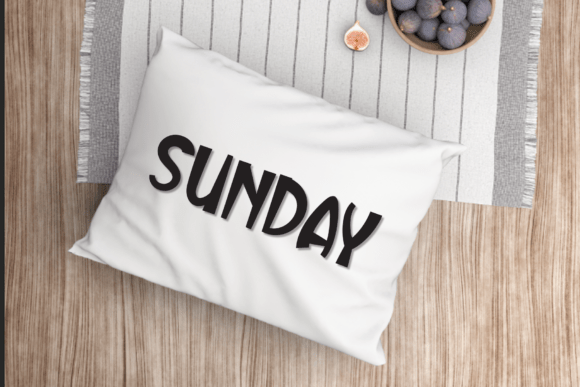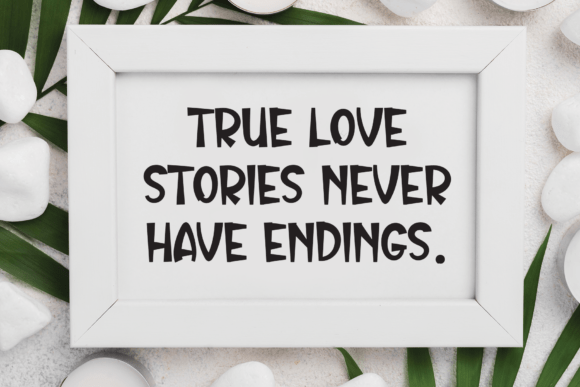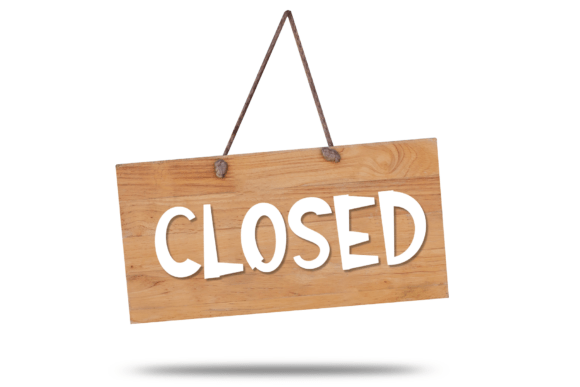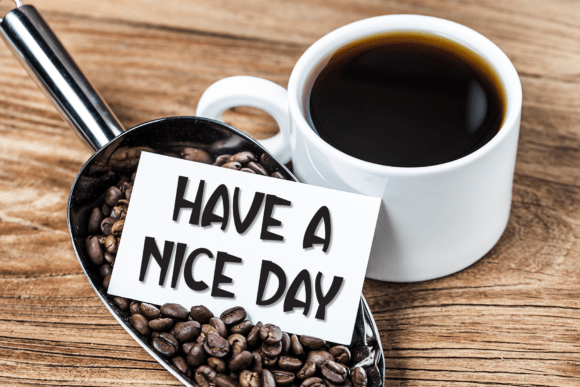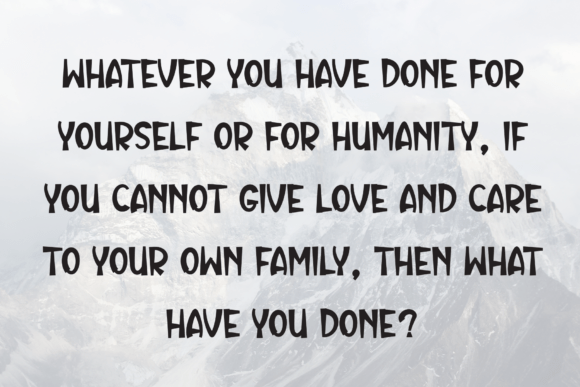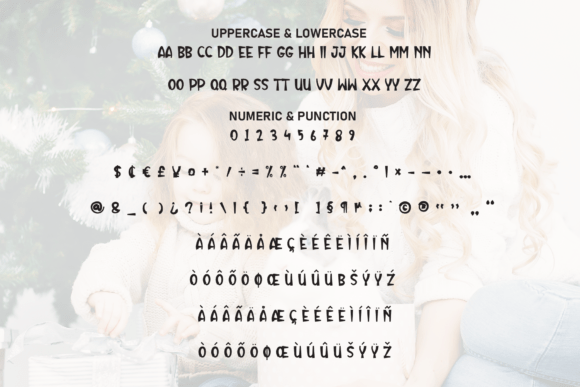
Introducing Funny Ornaments Font: Elevate Your Designs with a Touch of Whimsy
Are you tired of using the same old fonts in your designs? Do you want to add a dash of personality and whimsy to your projects? Look no further than Funny Ornaments Font, the perfect addition to any designer’s or crafter’s toolkit. Our font is designed to provide a unique and extraordinary experience, with a range of special creative products that will take your designs to the next level.
The Latest Style Letters for Modern Designs
Our Funny Ornaments Font features the latest style letters that are perfect for a variety of design applications. Whether you’re creating wall displays, wedding invitations, social media post logos, advertisements, product packaging, product designs, labels, photography, watermarks, invitations, stationery, or any other project that requires tasteful handwriting, our font has got you covered.
- Encoded PUA Character: Our font features encoded PUA characters, allowing you to access all characters completely without needing additional design software.
With Funny Ornaments Font, the design possibilities are endless. Here are just a few ideas to get you started:
- Create stunning wall displays and art pieces for your home or office.
- Design beautiful wedding invitations and stationery that will make your special day truly unforgettable.
- Add a touch of personality to your social media posts and logos.
- Elevate your advertising and marketing materials with a unique and eye-catching font.
- Use our font to create custom product packaging and labels that will make your products stand out.
- Add a professional touch to your photography and watermarks.
Why Choose Funny Ornaments Font?
So why choose Funny Ornaments Font over other fonts on the market? Here are just a few reasons:
- Unique and whimsical design: Our font features a one-of-a-kind design that’s sure to add a touch of personality to your projects.
- High-quality and versatile: Our font is designed to work in a variety of design applications, making it the perfect addition to any designer’s or crafter’s toolkit.